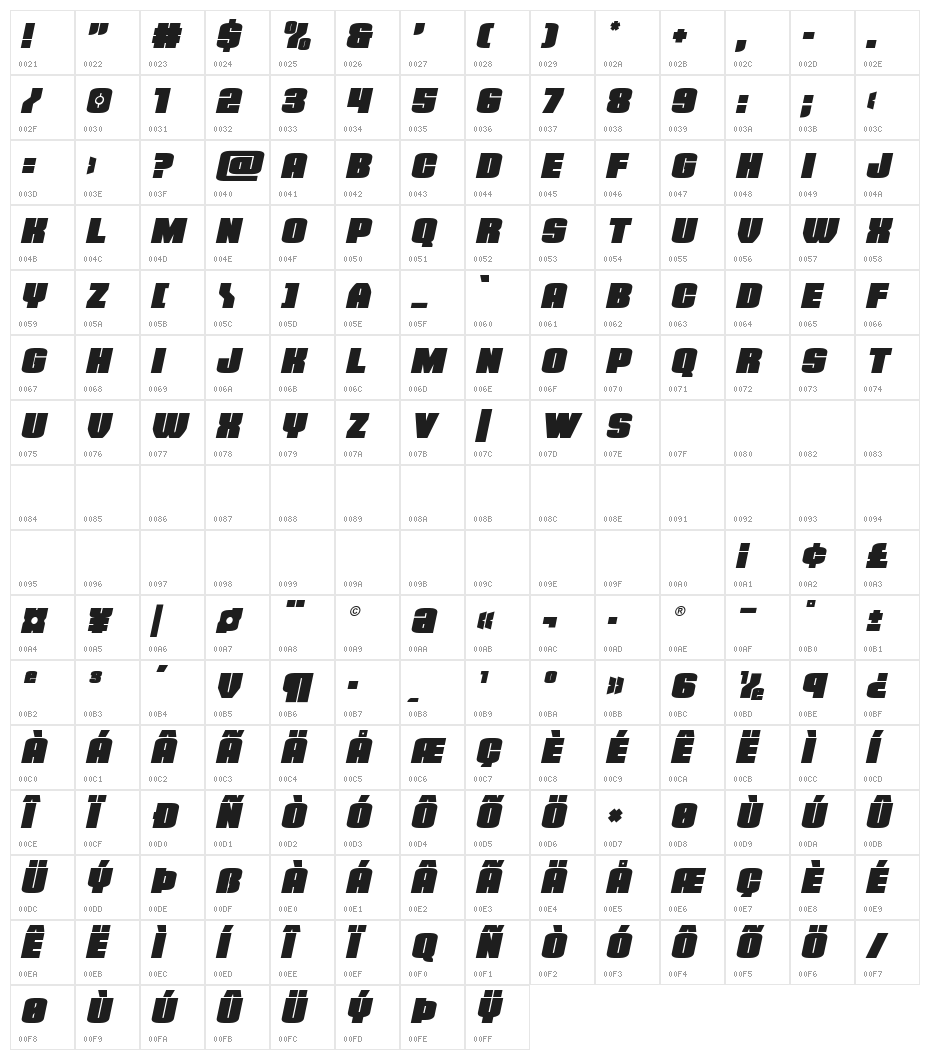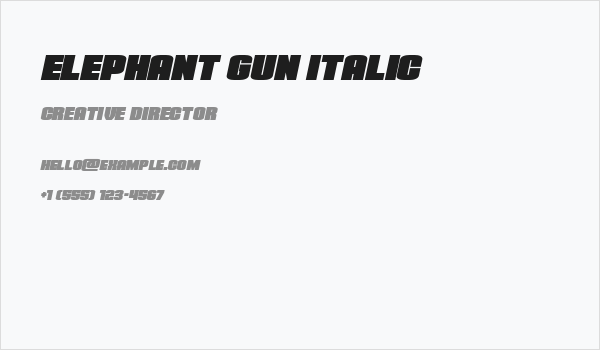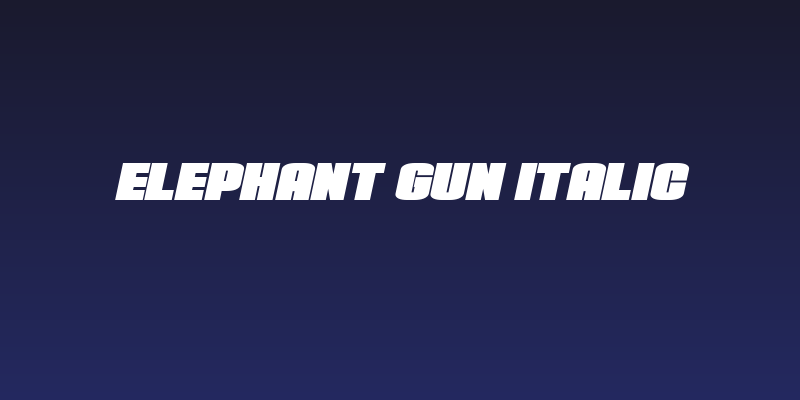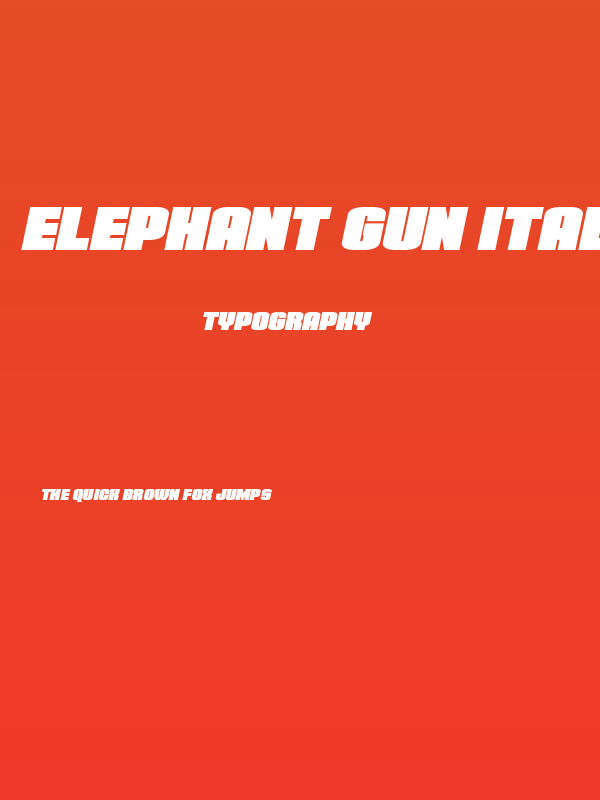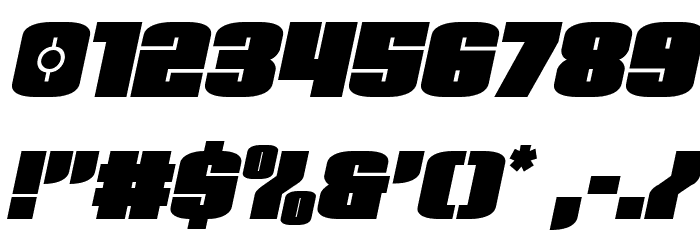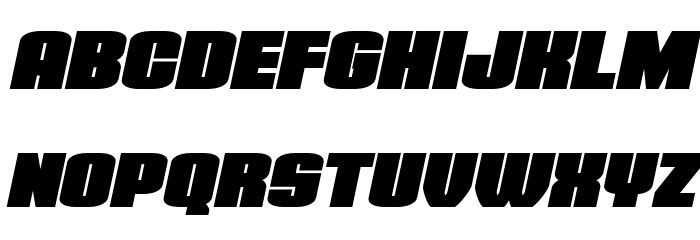
Elephant Gun Italic Font
This font features a bold and dynamic style with a strong presence. The characters are italicized, giving them a forward-leaning stance that conveys motion and energy. The strokes are thick and uniform, contributing to a robust and impactful appearance. The font maintains a consistent weight throughout, ensuring readability while making a statement. The design is modern and slightly aggressive, suitable for attention-grabbing headlines or branding that requires a bold touch. The spacing between characters is tight, enhancing the compact and powerful look of the text.
| Proposed Projects | Ideal for sports branding, action movie posters, dynamic advertisements, and bold headlines. |